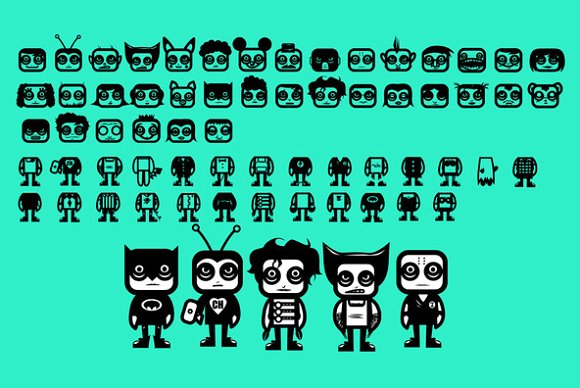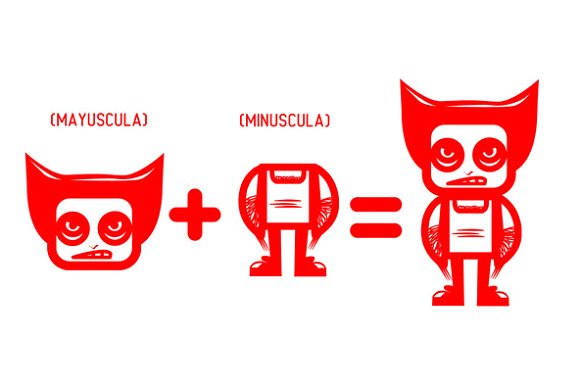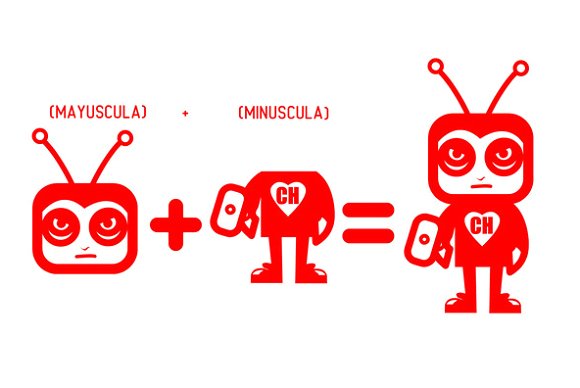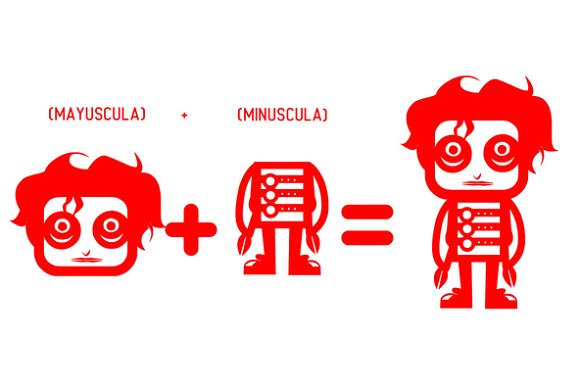
Comando X Font
About Comando X Font
Comando X is a delightful and playful dingbats font designed by Rodrigo Araya Salas. With its unique characters and customizable options, this font brings a sense of fun and creativity to your designs.
One of the distinctive features of Comando X is the separation of the body and the head into different characters. This allows for easy mixing and matching, giving you the ability to create a staggering 936 unique combinations. You can play around with the various head and body options to craft whimsical and charming characters that suit your design needs.
The versatility of Comando X opens up a world of possibilities. Whether you’re working on branding, advertising, packaging, or any other design project that calls for a touch of playfulness, this font can add a delightful element to your compositions. Use Comando X to create eye-catching headlines, playful illustrations, or decorative elements that will capture the attention and imagination of your audience.
With its fun and quirky design, Comando X is perfect for projects aimed at children’s books, games, toys, or any creative endeavor that requires a lighthearted and whimsical touch. The ability to mix and match the characters gives you endless creative freedom to express your ideas in a unique and engaging way.
When using Comando X, consider the legibility and readability of the characters. Due to their playful nature, some combinations may require additional attention to ensure clarity, especially when used in smaller sizes or longer blocks of text. It’s recommended to use Comando X primarily for display purposes or as decorative elements within your designs.
In summary, Comando X is a fun and playful dingbats font that offers a wide range of creative possibilities. With its unique character options and the ability to mix and match heads and bodies, you can create over 900 distinctive combinations. Let your imagination run wild and use Comando X to add a touch of whimsy and charm to your designs.